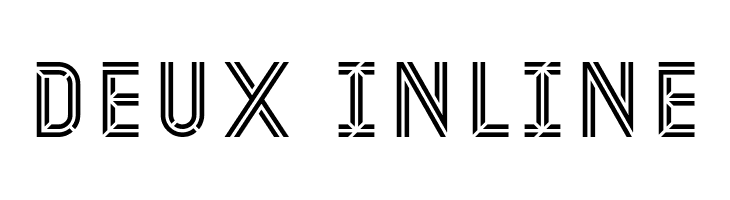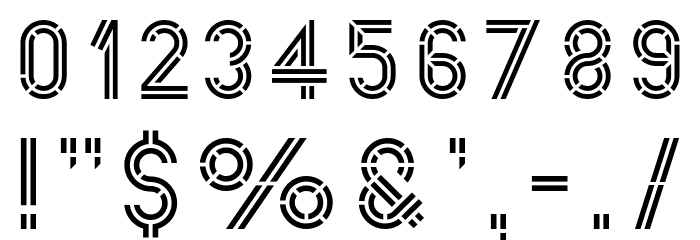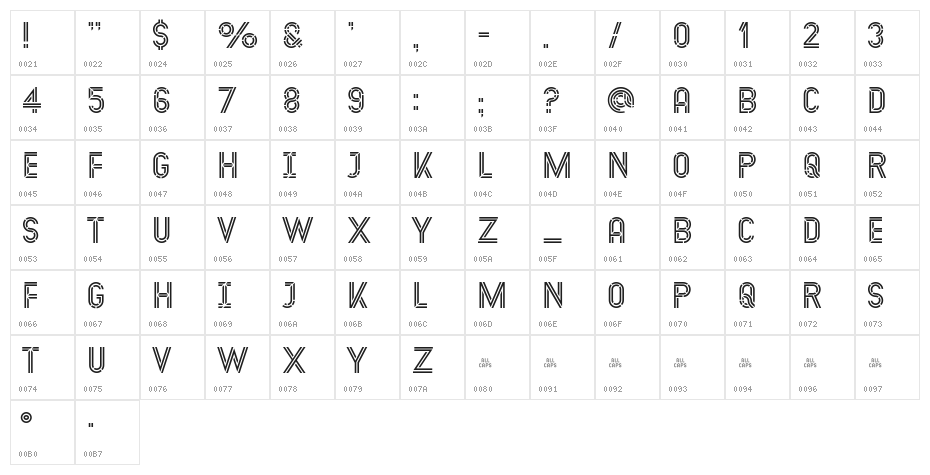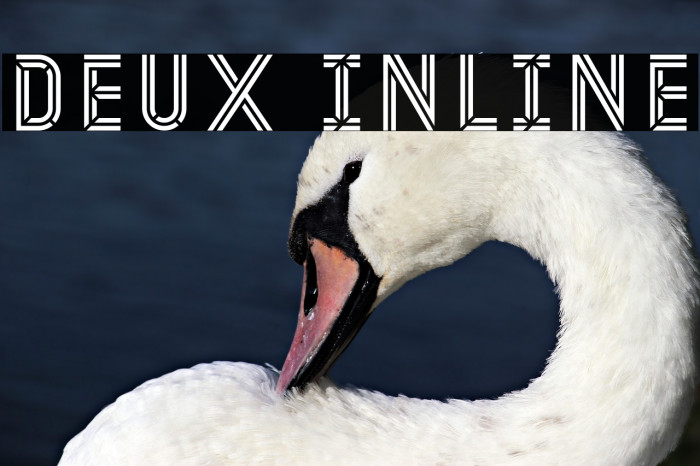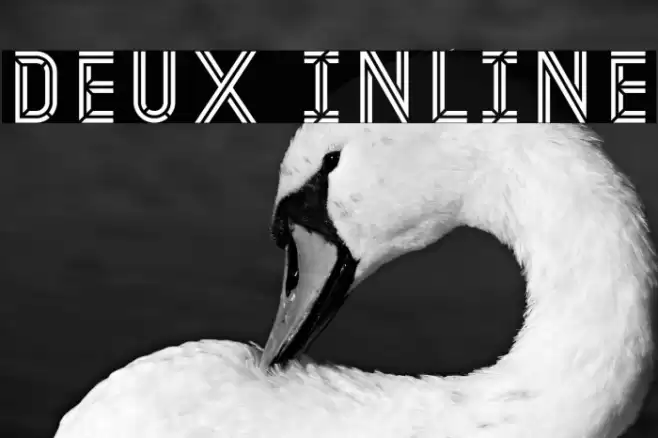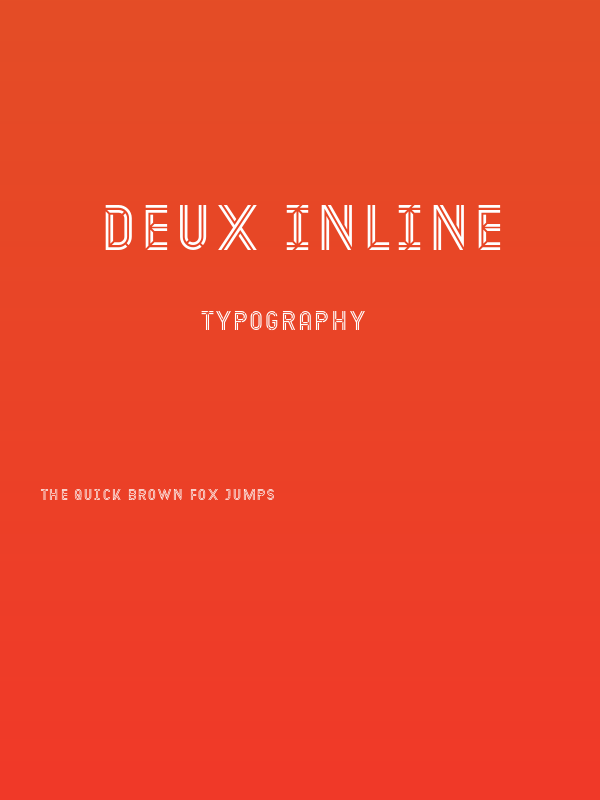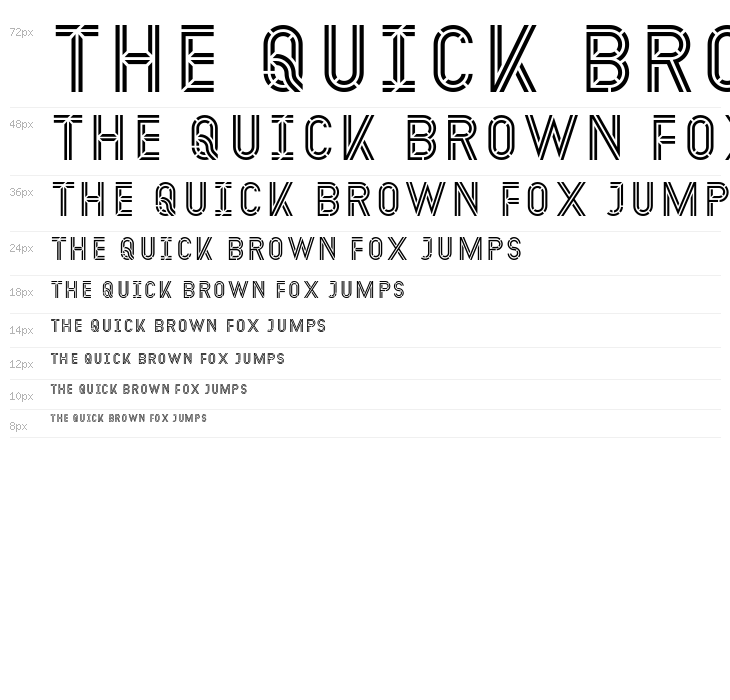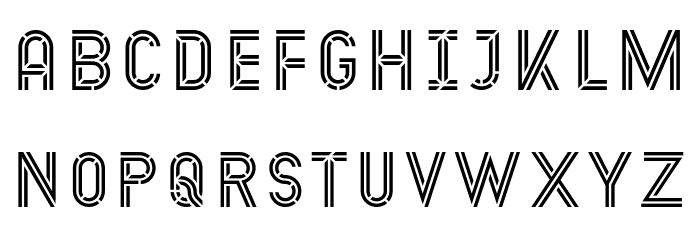
Deux inline Font
Deux inline Description
This font features a unique inline design that combines modern aesthetics with a geometric structure. Each character is crafted with a series of parallel lines that create an intriguing visual effect, making it stand out in any design project. The uppercase and lowercase letters maintain a consistent style, with clean lines and sharp angles that give the font a futuristic feel. The numerals and special characters are equally well-designed, ensuring a cohesive look across all text elements. This font's distinct appearance makes it ideal for projects that require a bold and innovative touch.
Proposed ProjectsIdeal for branding, posters, headlines, and any design project that requires a modern and eye-catching typeface.